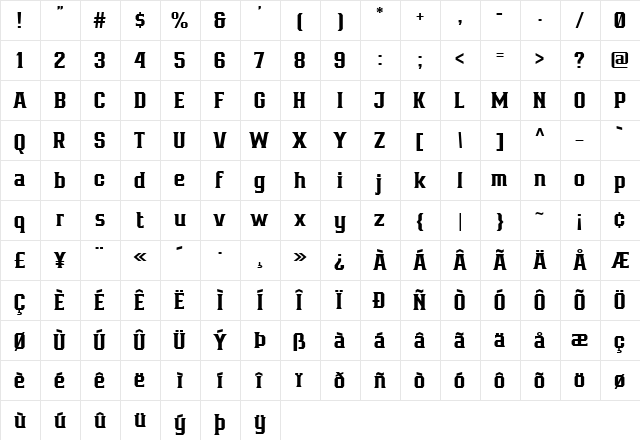
Bronzier Medium
| Foundry | Arterfak Project |
| Designer | Ahmad Ramzi Fahruddin |
Design Context for Bronzier Typeface
Bronzier is a composed and adaptable typeface that performs quietly and consistently across a wide range of design contexts.